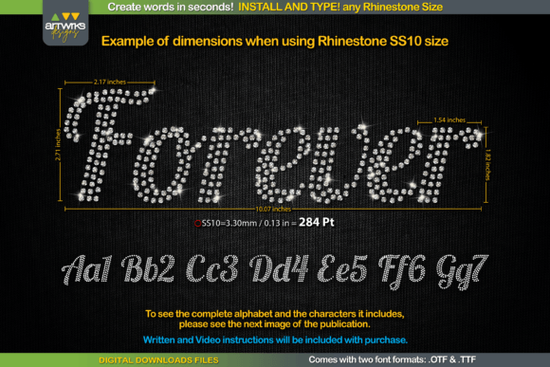
Looking for a Forever Font that's ready for rhinestone templates, heat transfer vinyl projects, or bold script designs? This decorative script font is built specifically with crafters in mind. Each letter comes pre-filled and organized so you can type out words and have them ready for cutting, layering, or rhinestone placement within minutes. Whether you sell custom shirts on Etsy, run a small vinyl business, or just love making personalized gifts, this font saves serious time on the design side of things.
What Makes Forever Font Different from Regular Script Fonts?
Most script fonts look beautiful on screen but require hours of manual work to convert into rhinestone-ready or HTV-friendly layouts. Forever Font is designed differently. When you type a word, each letter is already filled with a rhinestone-style pattern or arranged for easy trapping with heat transfer vinyl. That means less time adjusting node points, spacing individual stones, or cleaning up paths in your cutting software.
For anyone who has spent an afternoon manually placing rhinestones on a template, you know how tedious that process gets. This font handles the heavy lifting so you can focus on the creative part choosing colors, picking materials, and finishing your project.
What Can You Make with a Rhinestone Script Font?
The short answer: a lot. Here are some popular projects crafters and small business owners use this type of font for:
- Custom t-shirts and hoodies rhinestone or HTV designs for events, teams, and gifts
- Tumblers and drinkware sparkling text for personalized cups
- Wedding and party décor signs, banners, and table accents
- Tote bags and accessories monograms and phrases
- Print-on-demand designs mockups that stand out with textured script
- Scrapbooking and card making decorative text with a handmade feel
The script style works especially well for names, short phrases, and single words that need to grab attention. Think "LOVE," "MAMA," "BRIDE," or custom business names.
How Does It Work with Design Software?
If you're working with heat transfer vinyl, the letter trapping is structured so you can weed cleanly without losing small details. That's a big deal when you're cutting at smaller sizes or working with intricate letterforms.
Is Forever Font a Good Fit for Beginners?
Absolutely. One of the best things about this font is that it removes the learning curve that usually comes with rhinestone template design. You don't need to understand rhinestone mapping software or manually place each stone. Just type, resize, and send it to your cutter.
That said, it's also useful for experienced designers who want to speed up their workflow. If you're running a small shop and fulfilling custom orders, saving 15–20 minutes per design adds up fast across a busy week.
For projects that call for a relaxed, handwritten feel, casual handwriting styles give your designs a personal touch. And if you're working on rustic or old-fashioned themes, a vintage postman-inspired font fits beautifully into that aesthetic. There are also child-friendly script fonts perfect for school projects, kids' party invitations, and playful branding.
You can explore the full collection of Forever Font and similar script fonts directly on Creative Fabrica's website.
What Should You Check Before Buying?
Before purchasing any crafting font, keep these points in mind:
- File format compatibility Make sure the font works with your cutter software and operating system
- License type Check if the license covers commercial use if you plan to sell finished products
- Character set Confirm it includes the letters, numbers, and symbols you need
- Preview with your own text Test how your specific words and names look before committing